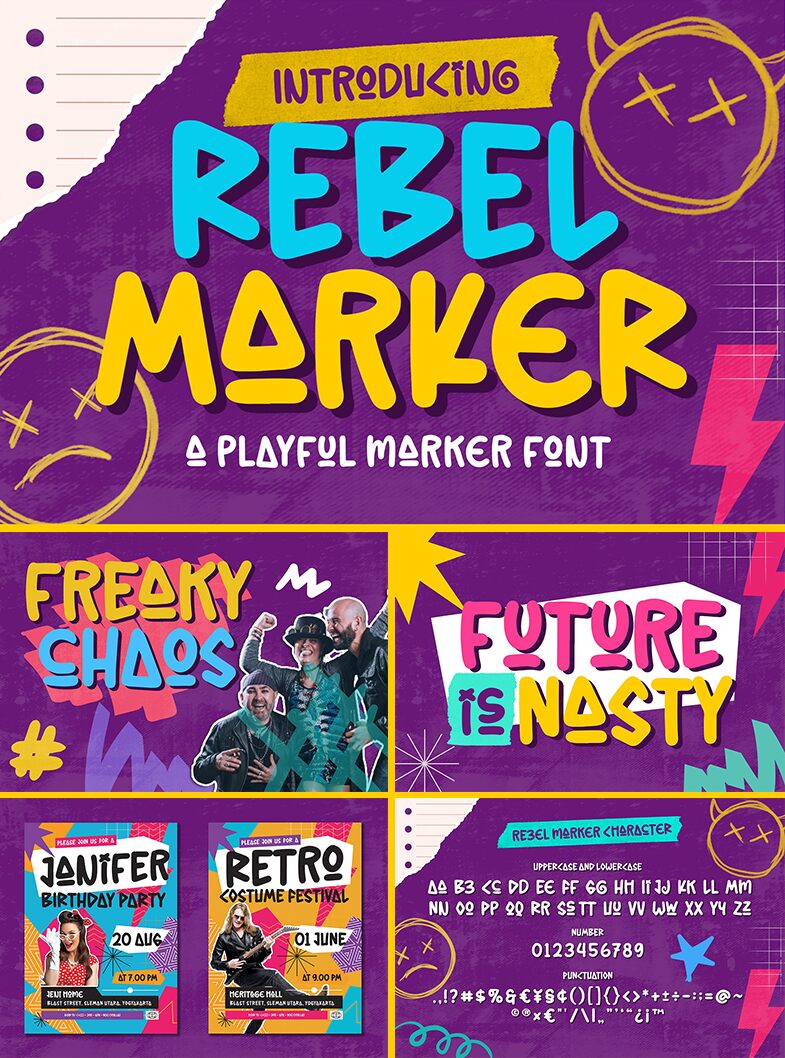
Rebel Marker font by Blankids is a free script font inspired by marker pen textures. Informal and energetic, this typeface uses a modern, daring approach to attract the attention of anyone who comes across it. Any job in which you utilize Rebel Marker will undoubtedly stand out from its surroundings, with informal yet youthful letterforms. Use it not only in your headers, but also in the rest of your text where a friendly vibe feels appropriate.
Rough brush styles like this one play a major role in marketing and branding. Stand out logo designs, beautiful packaging, artistic posters, and creative flyers are only some of the things you can create with Rebel Marker. Use it on social media, blog posts, and Youtube videos as well.